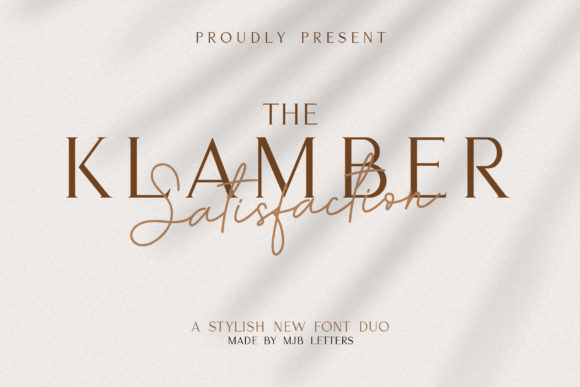
Klamber Satisfaction Font
Journey into the realm of typography with Klamber Satisfaction, an artistic masterpiece that captures the essence of elegance and authenticity. This enchanting font duo, meticulously crafted by MJB Letters, invites you to experience the joy of designing with a script font like no other.
Meet Klamber Satisfaction, the font that combines casual charm with sophistication, making it a versatile pick for any creative project. Its seamless harmony and visual appeal create a captivating narrative, whether you're designing logos, crafting invitations, or creating social media posts.
Dive into the depths of Klamber Satisfaction's characters and discover a world of distinctive beauty. Each letterform is a work of art, meticulously shaped with flowing curves and delicate strokes, exuding a timeless charm that captivates and engages.
Harness the power of Klamber Satisfaction Regular to unleash your creativity and ignite your imagination. This font exudes a casual grace that effortlessly adds a touch of warmth and personality to your designs. Let your words dance across the page, guided by the font's natural rhythm and authenticity.
Embrace the elegance of Klamber Satisfaction Italic, a font that personifies sophistication and style. With its graceful slants and flowing curves, this font adds a touch of refinement and charm to any project. Its timeless beauty elevates your designs, evoking a sense of luxury and sophistication.
Together, Klamber Satisfaction Regular and Italic form a dynamic duo that complements each other perfectly. Their combined strength creates a visually striking contrast, enhancing the impact of your message and captivating the attention of your audience. Experience the magic of this font pairing and let your creativity soar.
Unleash the boundless possibilities of Klamber Satisfaction and embark on a typographic adventure like no other. Add this exceptional font duo to your creative toolkit and witness the transformation of your designs. Let Klamber Satisfaction become your muse, inspiring you to create masterpieces that resonate with beauty, authenticity, and timeless elegance.